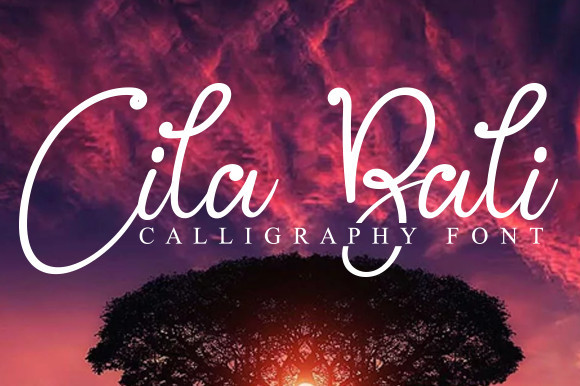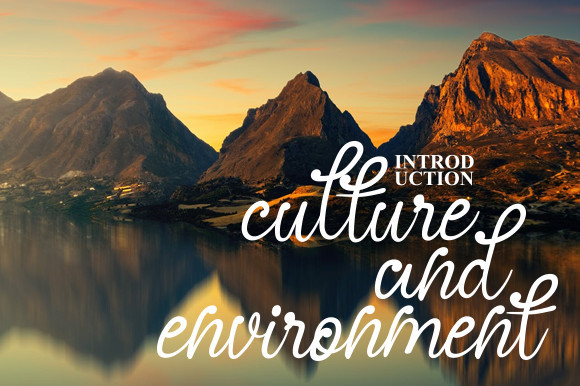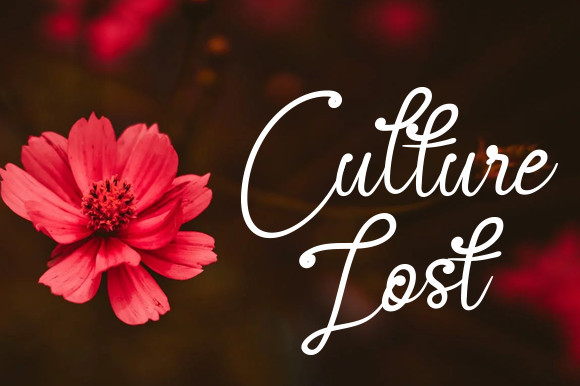
Cila Bali Font
Cila Bali feels equally charming and elegant. This display font will elevate a wide range of design projects to the highest level, be it branding, headings, wedding designs, invitations, signatures, logos, labels, and much more!